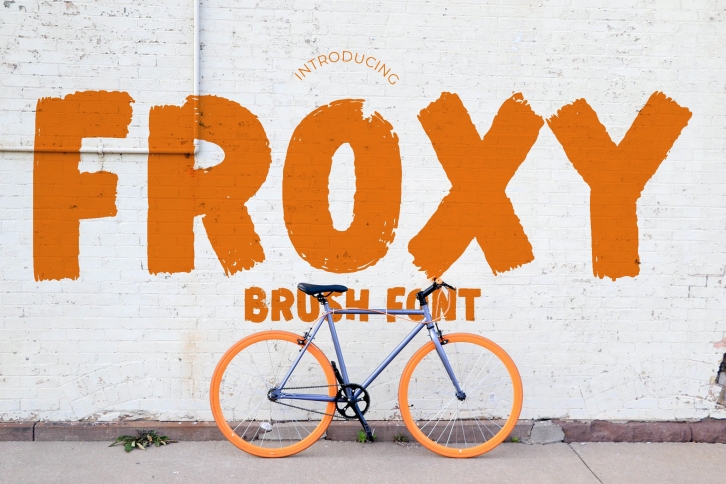
Froxy is a brushed and thick lettered display font. No matter the topic, this font will be an incredible asset to your fonts’ library, as it has the potential to elevate any creation.Â